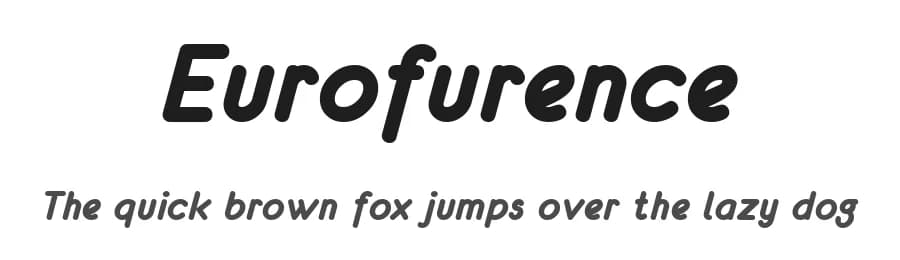
About Eurofurence Font
Eurofurence is a sans-serif font designed by Tobias Benjamin Köhler. It includes 708 glyphs, a bold weight, TTF (TrueType) format, and 292 languages. Eurofurence is free to download; check the license details on this page before commercial use. Sans-serif fonts like Eurofurence work best for clean body text, user interfaces, branding, and modern layouts.
Eurofurence Font is a versatile sans-serif font that works for both headings and body text. Pair it with a contrasting serif or slab serif font to add visual interest and a clear distinction between titles and body copy.
Eurofurence Font
Eurofurence Font is a sans serif typeface by Tobias Benjamin Köhler, ideal for logos, invitations, branding, and creative projects.